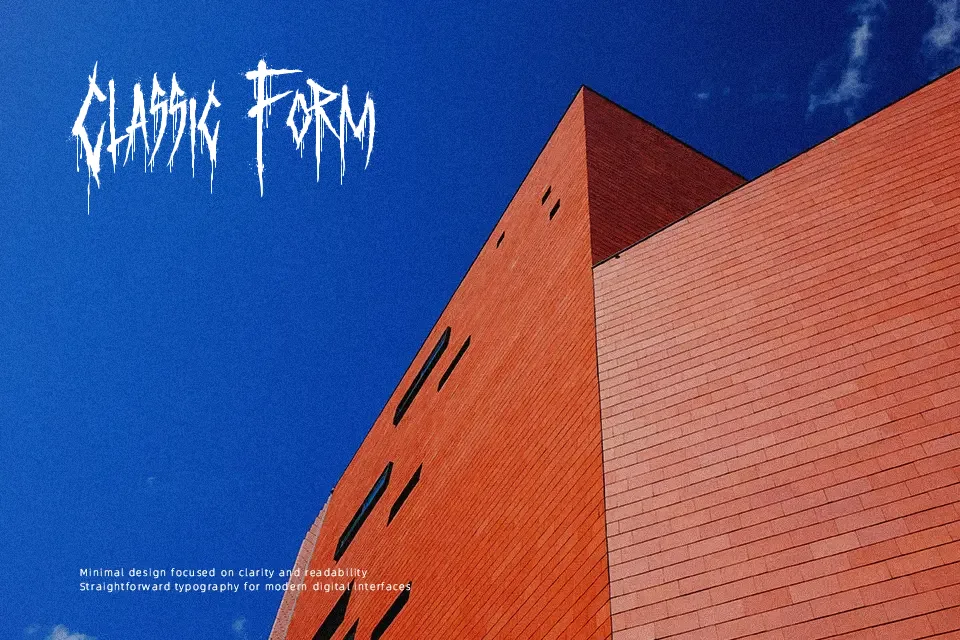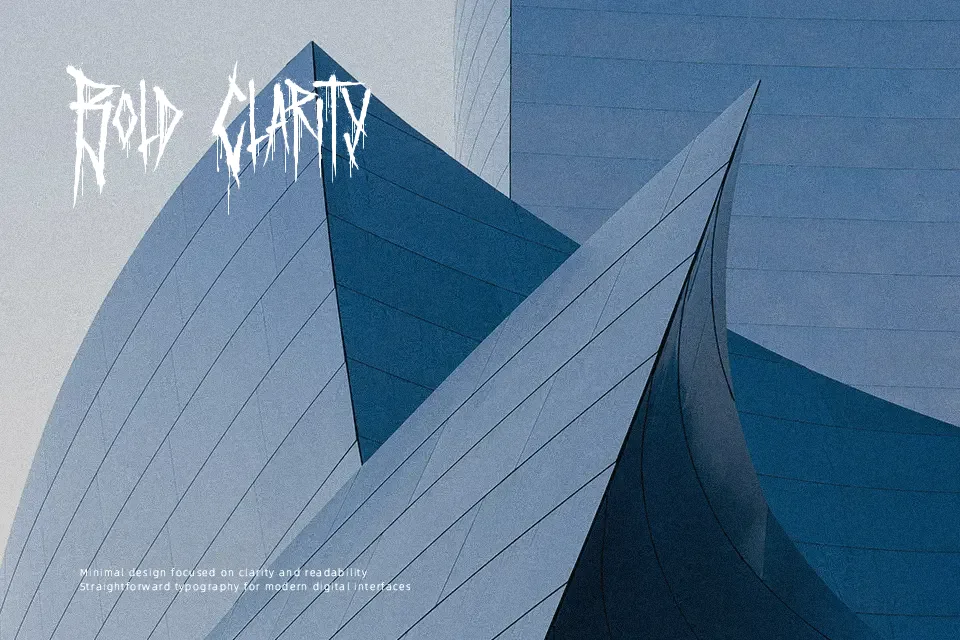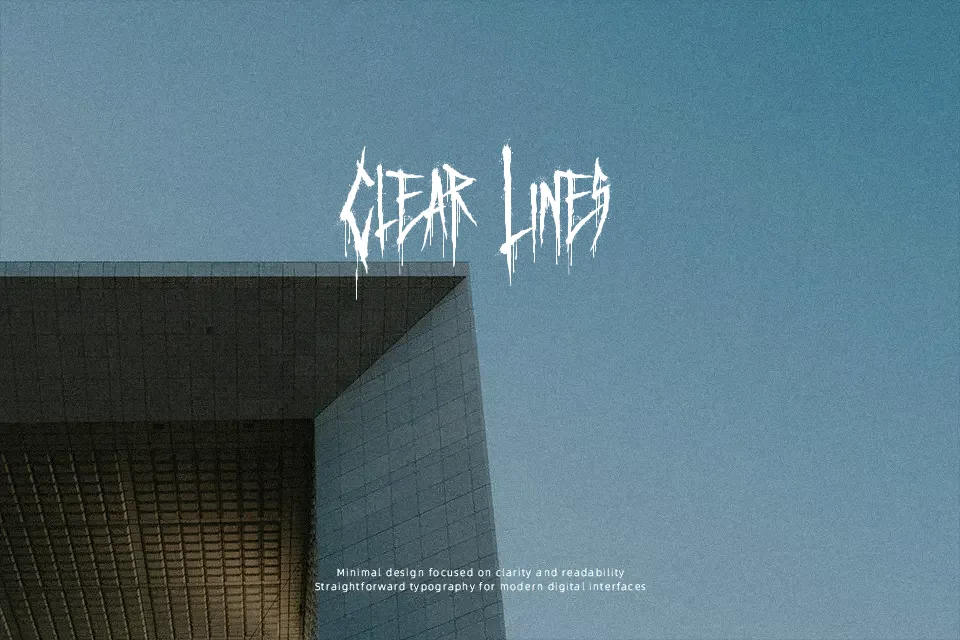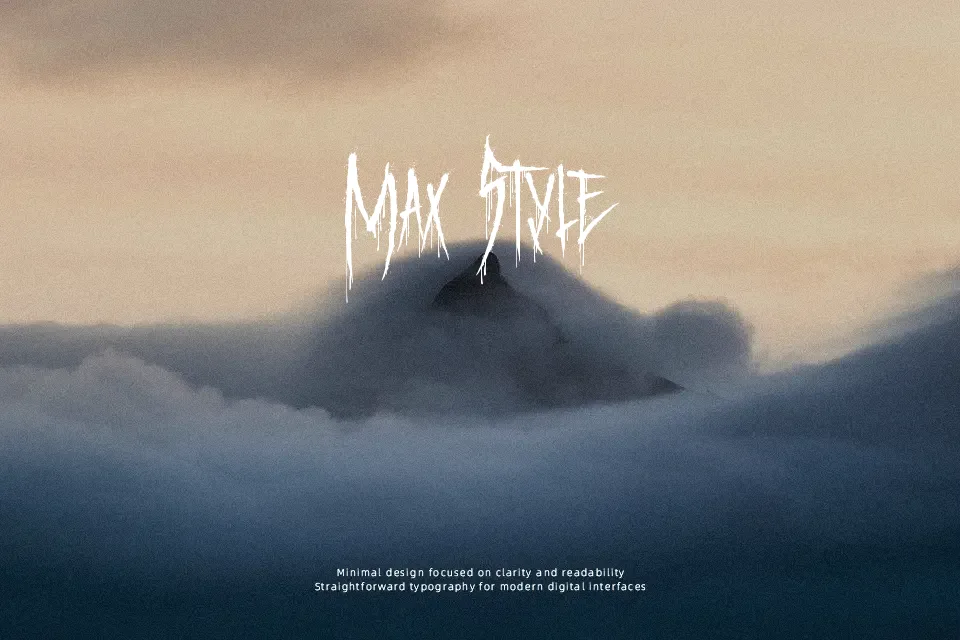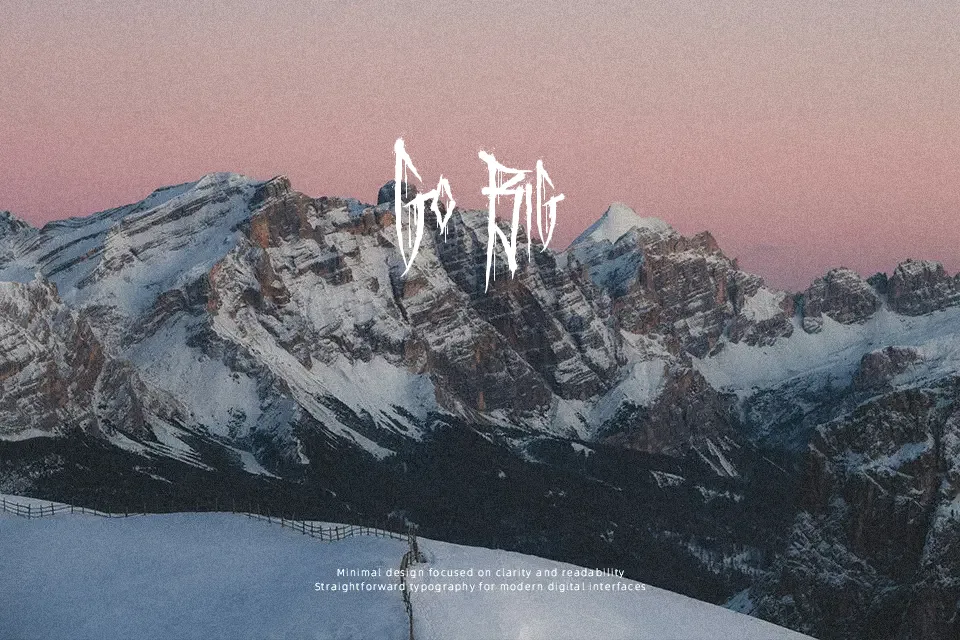
Terror From Midnight Font
Designed by Lettersiro Studio
Terror From Midnight Font is a decorative display typeface distinguished by splintered strokes, jagged silhouettes, and heavily textured outlines. The letterforms exhibit irregular vertical proportions and compact spacing, creating a dense rhythm across all-caps arrangements and title settings. While the aggressive stroke contrast and pointed terminals maximize visual impact in oversized compositions, dense forms reduce comfort during extended reading. Consequently, the typeface remains highly functional for metal band logos, haunted attraction posters, and apparel designs, but fine details break down when scaled down to small body paragraphs or standard user interfaces.
Best For: metal band merchandise, horror film posters, halloween event flyers, album title graphics
Not Ideal For: continuous reading passages, mobile interface labels, corporate identity design, tabular data layouts
Perfect for branding, headline, and logo, with a dark and blackletter style.